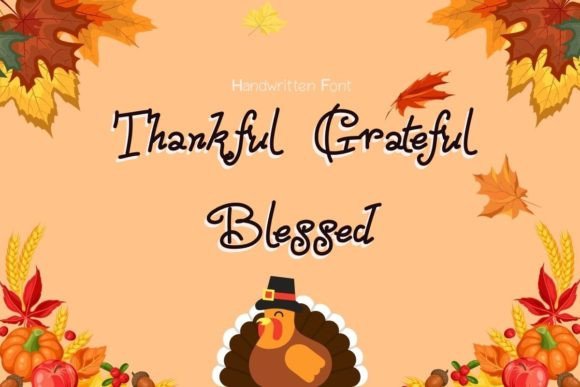
Behold, the Thankful Grateful Blessed Font—a whimsical, charming handwritten font that bursts with cheer and embraces the spirit of gratitude. Its playful personality and quirky charm make it perfect for adding a delightful touch to your autumn and Thanksgiving projects.
Picture this: your designs adorned with the Thankful Grateful Blessed Font, captivating your audience with its vibrant energy and infectious joy. Its unique style adds a personal touch to your creations, making them stand out from the crowd.
With every letter carefully crafted, the Thankful Grateful Blessed Font exudes warmth and happiness. It's like having a handwritten note from a dear friend, filled with love and appreciation. Its delicate strokes and playful curves evoke a sense of nostalgia, transporting you to a simpler time when life's blessings were celebrated with heartfelt gratitude.
But the Thankful Grateful Blessed Font doesn't stop at autumn and Thanksgiving; its versatility extends to a myriad of projects. Its charming nature makes it perfect for invitations, greeting cards, posters, social media posts, and even logos. Its unique style adds a touch of whimsy to branding and marketing materials, creating a lasting impression that speaks volumes about your brand's personality.
As a handwritten font, the Thankful Grateful Blessed Font possesses an inherent authenticity and relatability. It evokes a sense of connection, making it perfect for projects that aim to touch hearts and inspire emotions. Whether it's a heartfelt message to a loved one or a captivating marketing campaign, the Thankful Grateful Blessed Font adds a personal touch that resonates with your audience.
So, if you seek a font that radiates joy, warmth, and a touch of delightful quirk, the Thankful Grateful Blessed Font is your perfect choice. It's more than just a font—it's an expression of gratitude, a celebration of life's simple pleasures, and an invitation to embrace the beauty of the season.